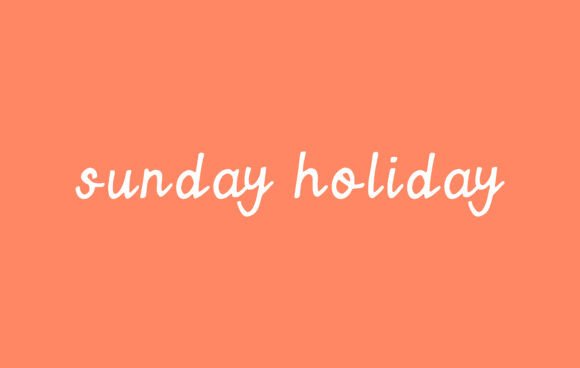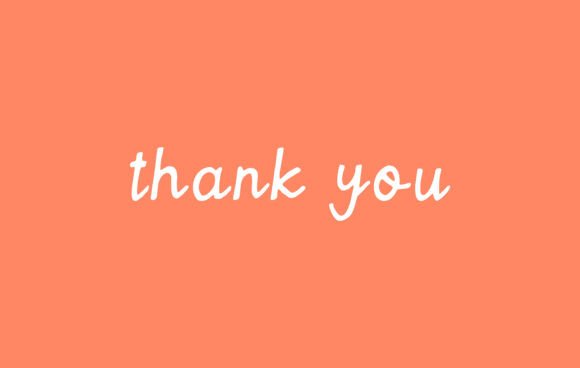
Introduction to Riley Font
Have you ever stumbled upon the perfect font that makes your creative project stand out? For many designers, that moment is like finding a hidden treasure. It’s the moment when all the elements come together, and the design starts to feel alive. For me, that moment was when I discovered the Riley Font.
With its authentic handwritten feel and romantic touch, the Riley Font is a true gem. Expertly designed to elevate your creative ideas, this font is perfect for designers looking to add a personal touch to their projects. Whether you’re working on a magazine headline, social media post, or wedding invitation, the Riley Font is a valuable design resource that can take your work to the next level.
What sets the Riley Font apart is its versatility and high quality. Available for free download, this font can be used with a transparent background, making it perfect for a variety of creative projects. In this article, we’ll dive deeper into the world of the Riley Font and explore its many uses and benefits for designers.
Riley Font
- Unique, stylish design that adds a touch of elegance to any project
Honest Review: Riley Font
I recently stumbled upon the Riley Font, a free download that caught my eye for its unique style and versatility. As a designer, I’m always on the lookout for high-quality design resources to elevate my creative projects. In this review, I’ll break down what works well and where this font falls short.
- The Riley Font has a clean and modern aesthetic that makes it perfect for a variety of creative projects.
- The transparent background allows for seamless integration with any design element.
- The font is highly customizable, making it easy to adjust to fit your specific design needs.
- The font’s simplicity may not be suitable for complex or high-contrast designs.
- The available font styles are limited, which may require additional downloads for a comprehensive font set.
Overall, the Riley Font is a solid addition to any designer’s toolkit. While it may not be the most comprehensive font set, its clean design and high-quality aesthetic make it a valuable resource for creative projects. With a little experimentation and customization, the Riley Font can help take your designs to the next level.
Riley Font
Tips for Getting the Most Out of Riley Font
To maximize the potential of the Riley Font, experiment with different font sizes, colors, and styles. Combine the font with other design elements, such as images or shapes, to create visually appealing designs. Use the font’s transparent background feature to create a seamless design experience.
Common Use Cases for Riley Font
The Riley Font is perfect for a variety of creative projects, including brochures, business cards, and social media graphics. Its high-quality design and transparent background feature make it ideal for professional design projects, while its free download option makes it accessible to designers of all levels.